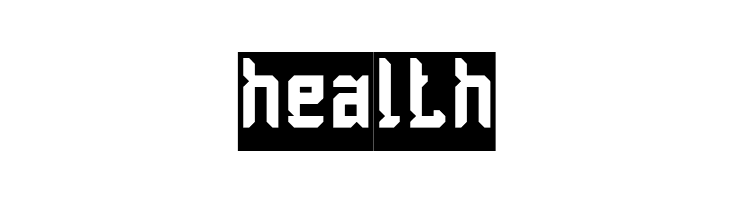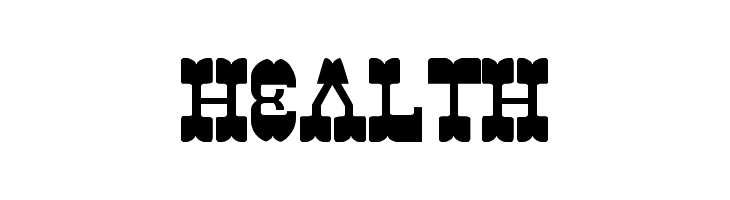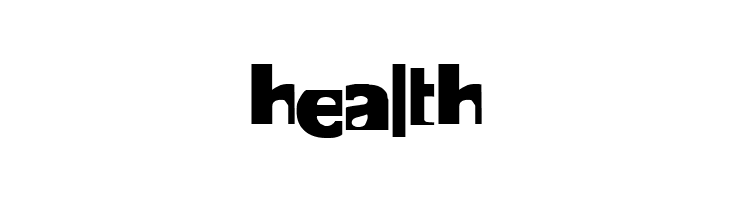
A bold, italicized font with a modern, dynamic style and strong visual impact.
A bold, modern font with thick, uniform strokes and tight spacing.
A bold, modern Gothic-inspired italic font with elongated, condensed characters.
A bold, angular font with a geometric, shield-like design.
A bold, blocky font ideal for sports and athletic branding.
A bold, geometric font with a strong, traditional Slavic influence.
A bold, heavy font with uneven strokes and a strong, artistic presence.
A bold, geometric font with angular lines and a strong visual impact.
A bold, block-like font with a strong, impactful presence.
A bold, condensed font with an industrial and retro feel.